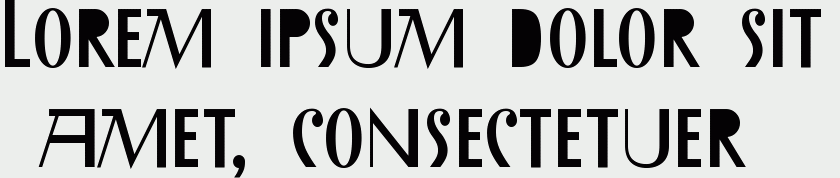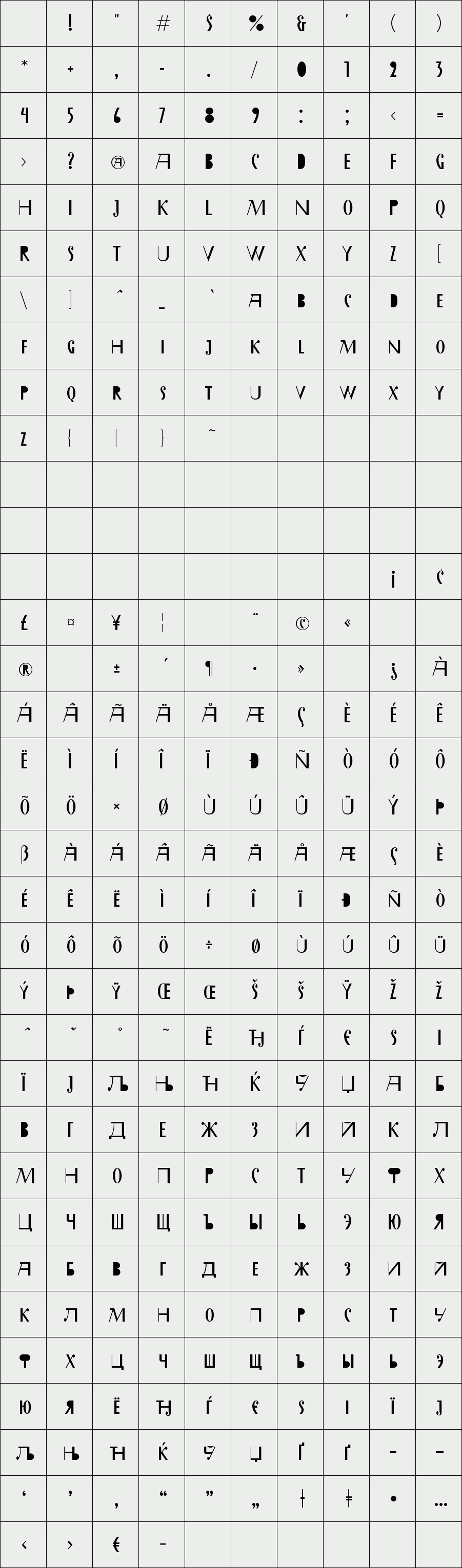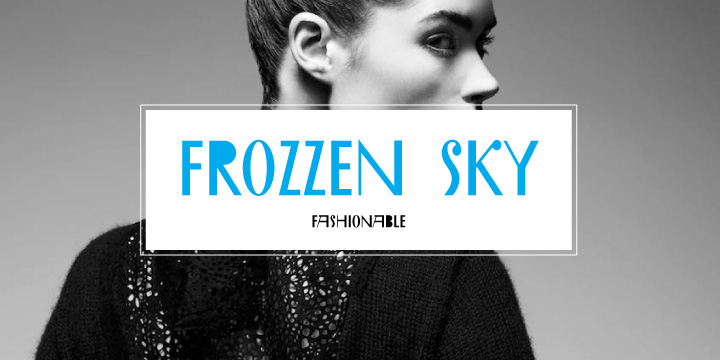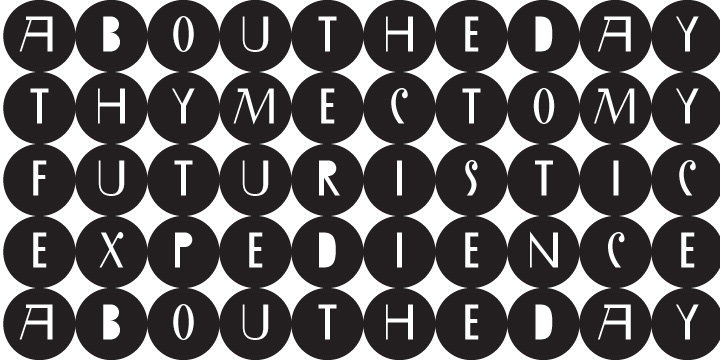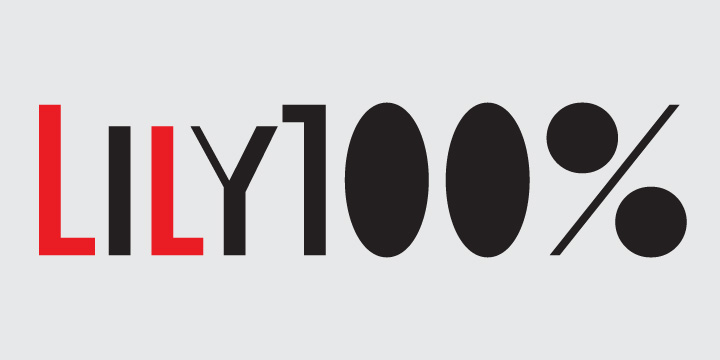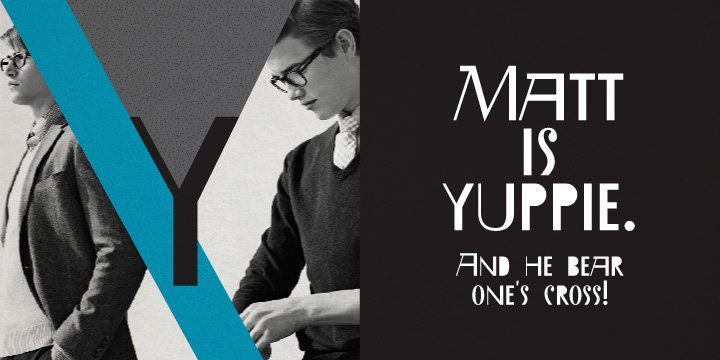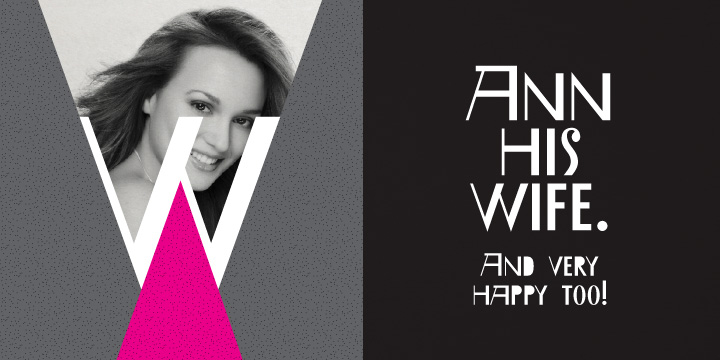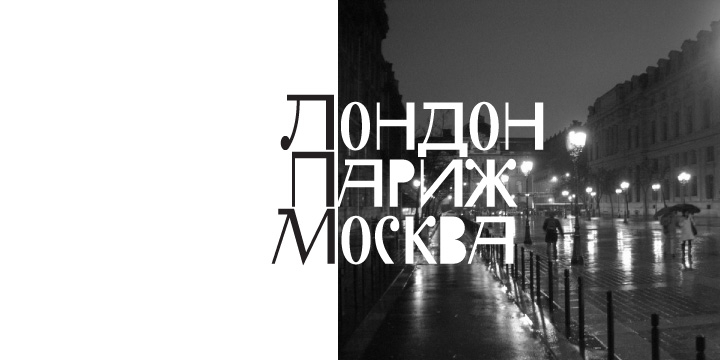
Wary
Wary is geometric, contrast san-serif with avantgarde touch. Wary was inspired from lettering used in a Russian book of the seventies. Use Wary font in advertising and display typography.
Designer: Gaslight Type Foundry